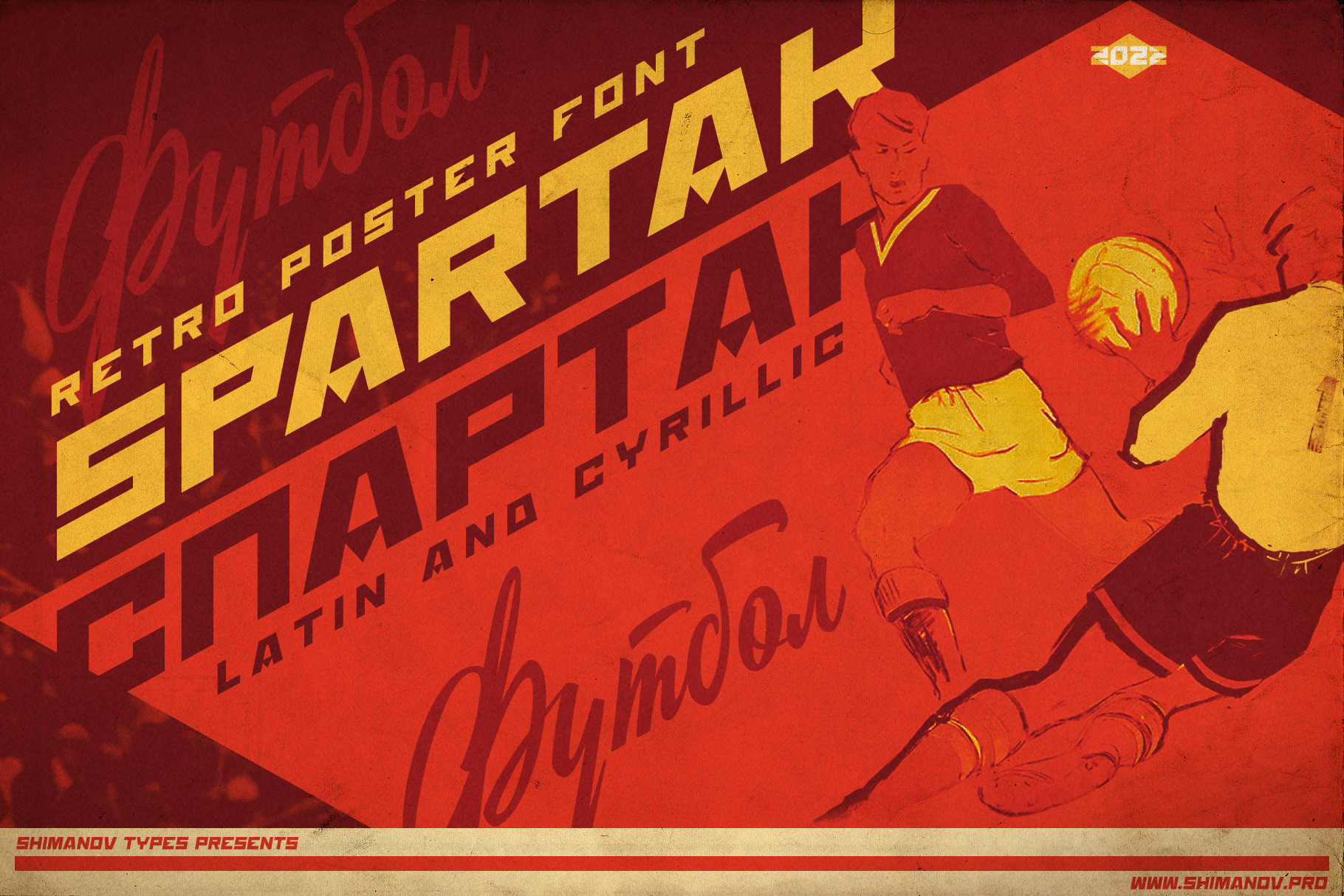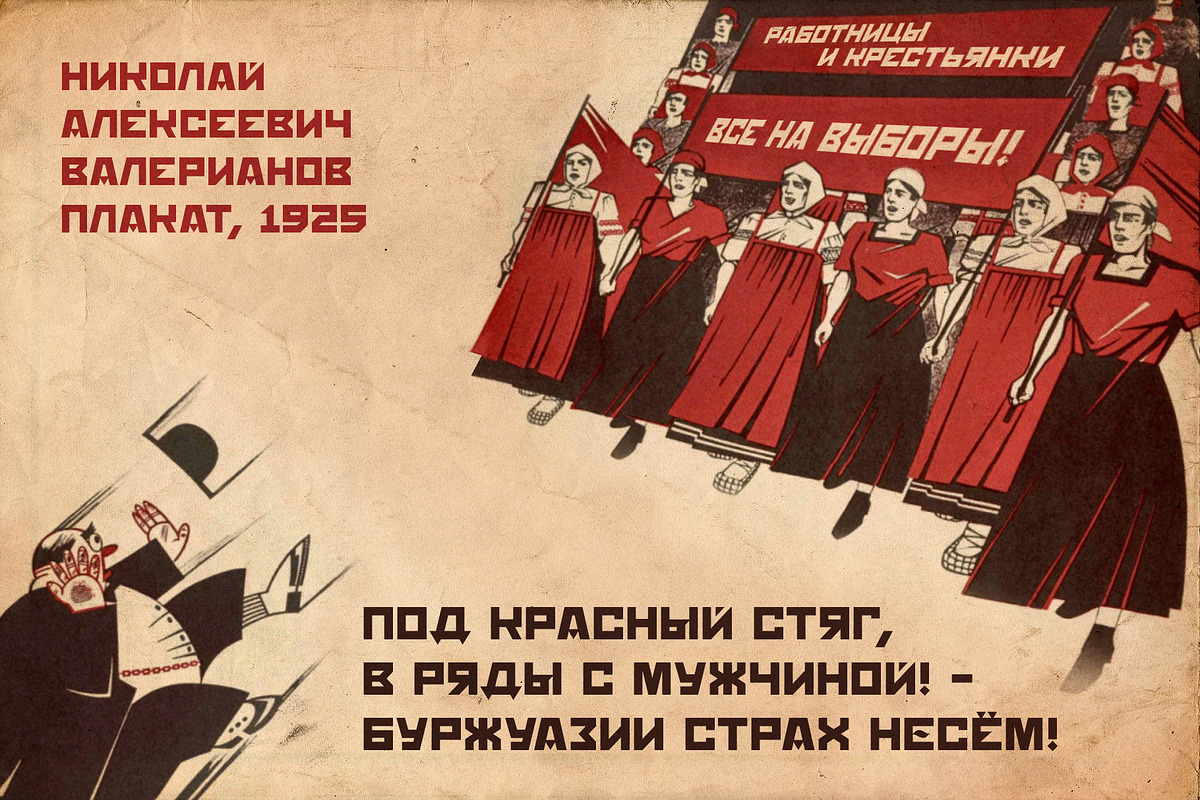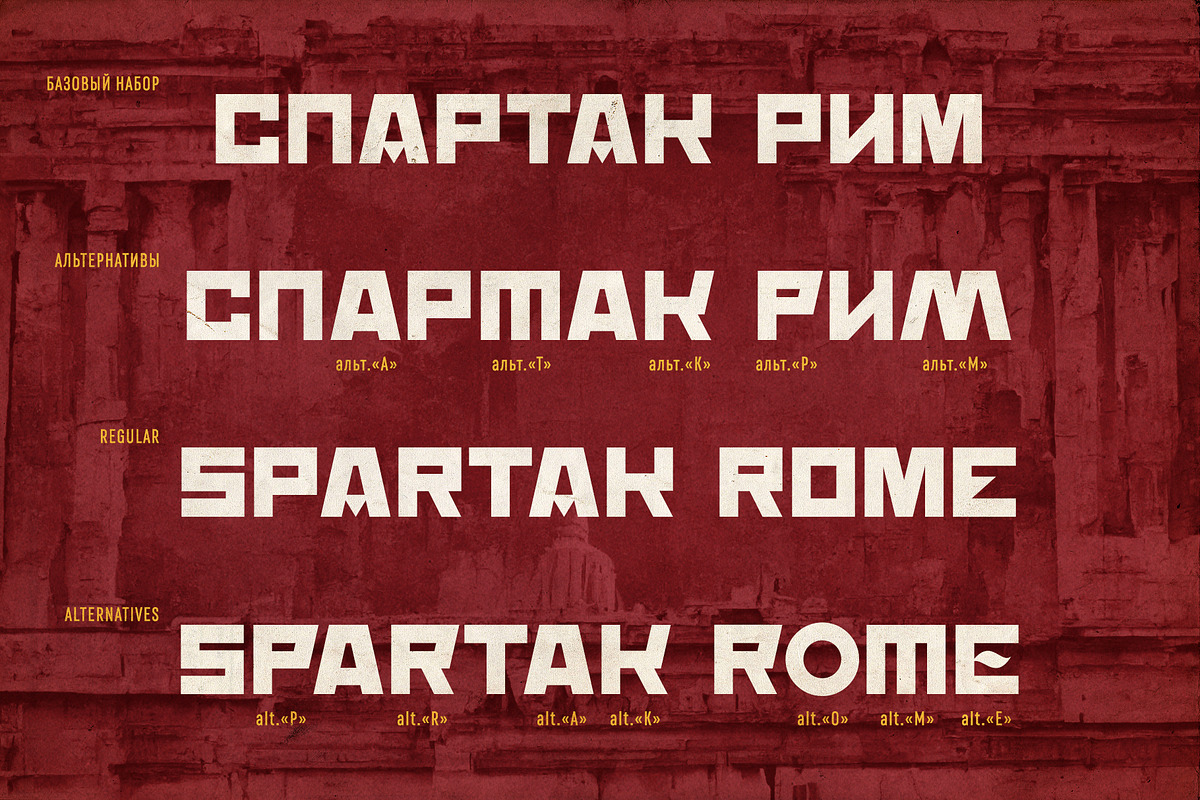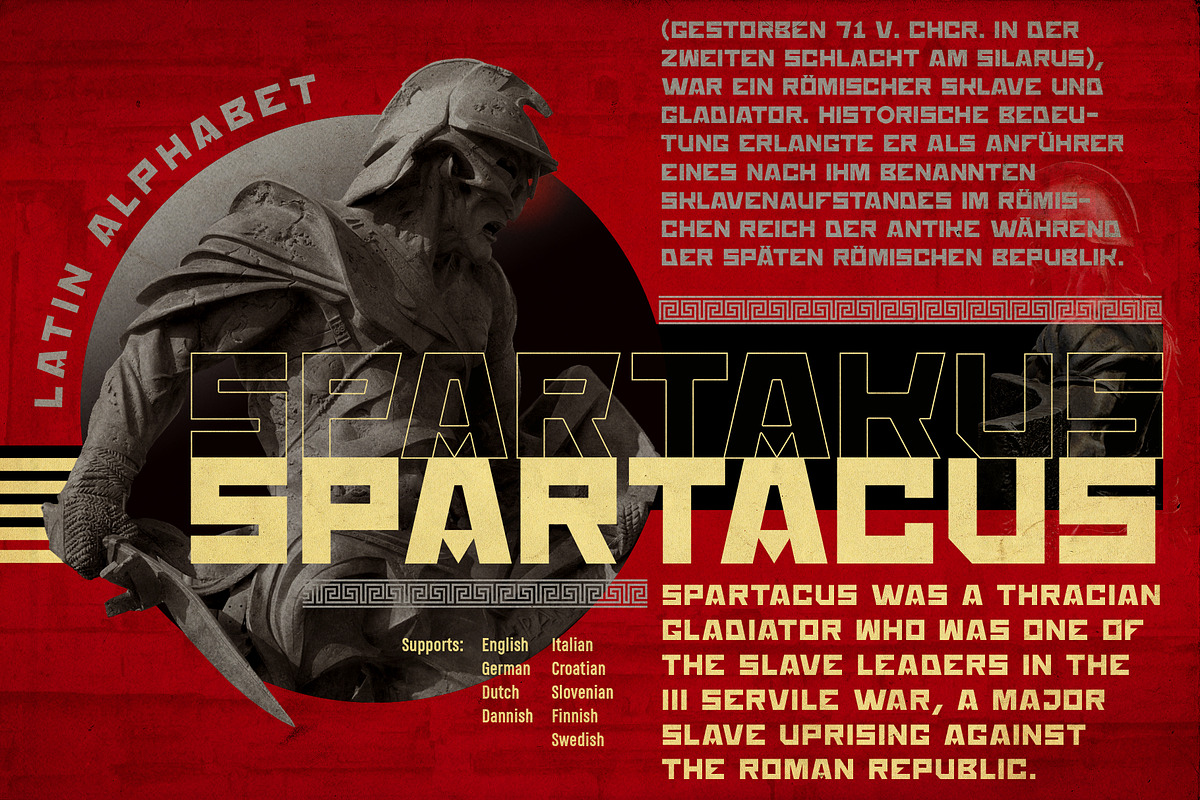
ST-Spartak retro sportive font
Introducing a retro wide grotesque called "ST-Spartak". Bring back to the Soviet Sport inspired by posters, movie titles and book covers. It has Extended LATIN and Extended CYRILLIC letters. "ST-Spartak" created for titles, poster design, web design, branding and packaging works, illustrations, badges and other typography works.
Small caps only, numbers, punctuation, international characters. It includes OTF format.